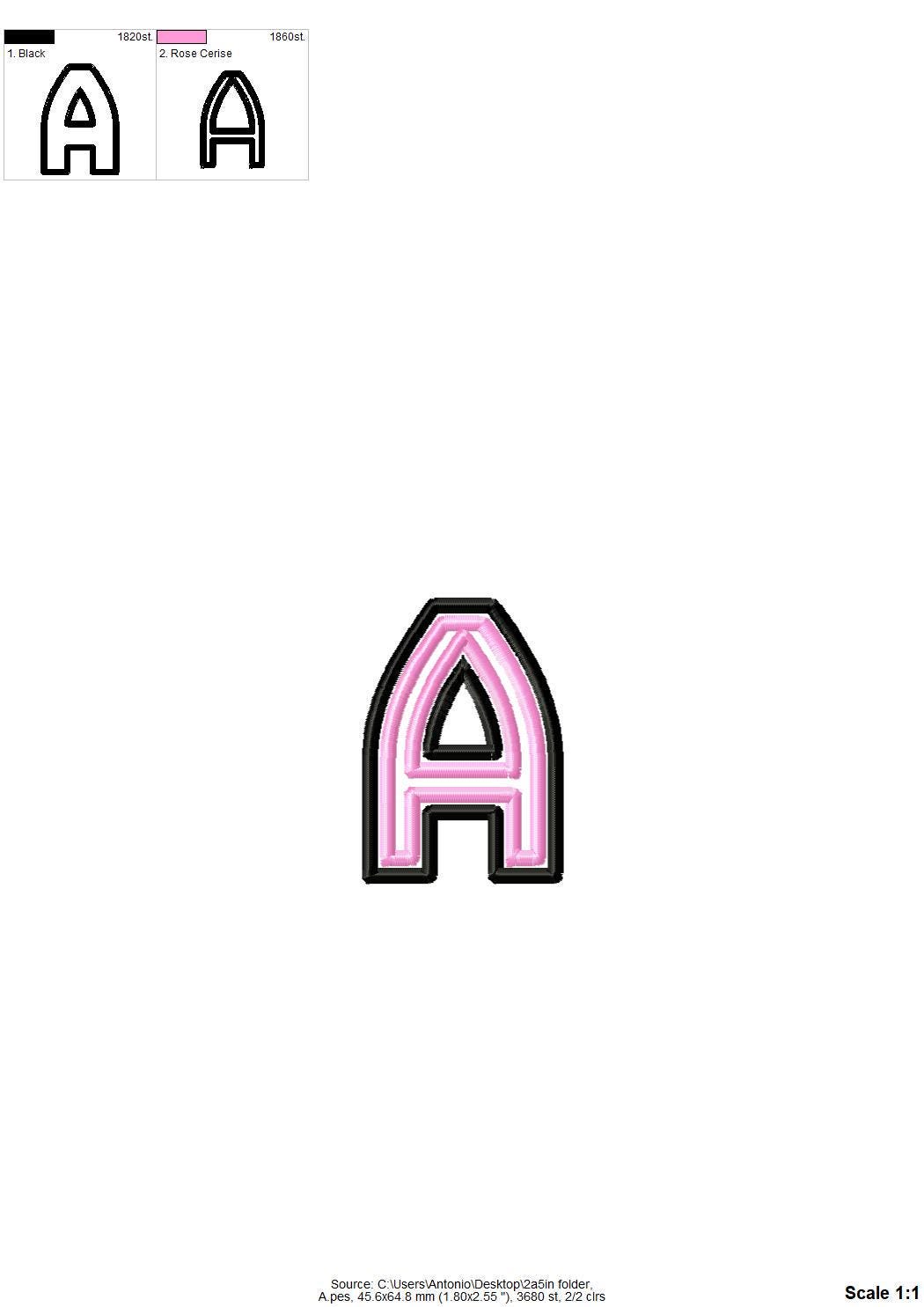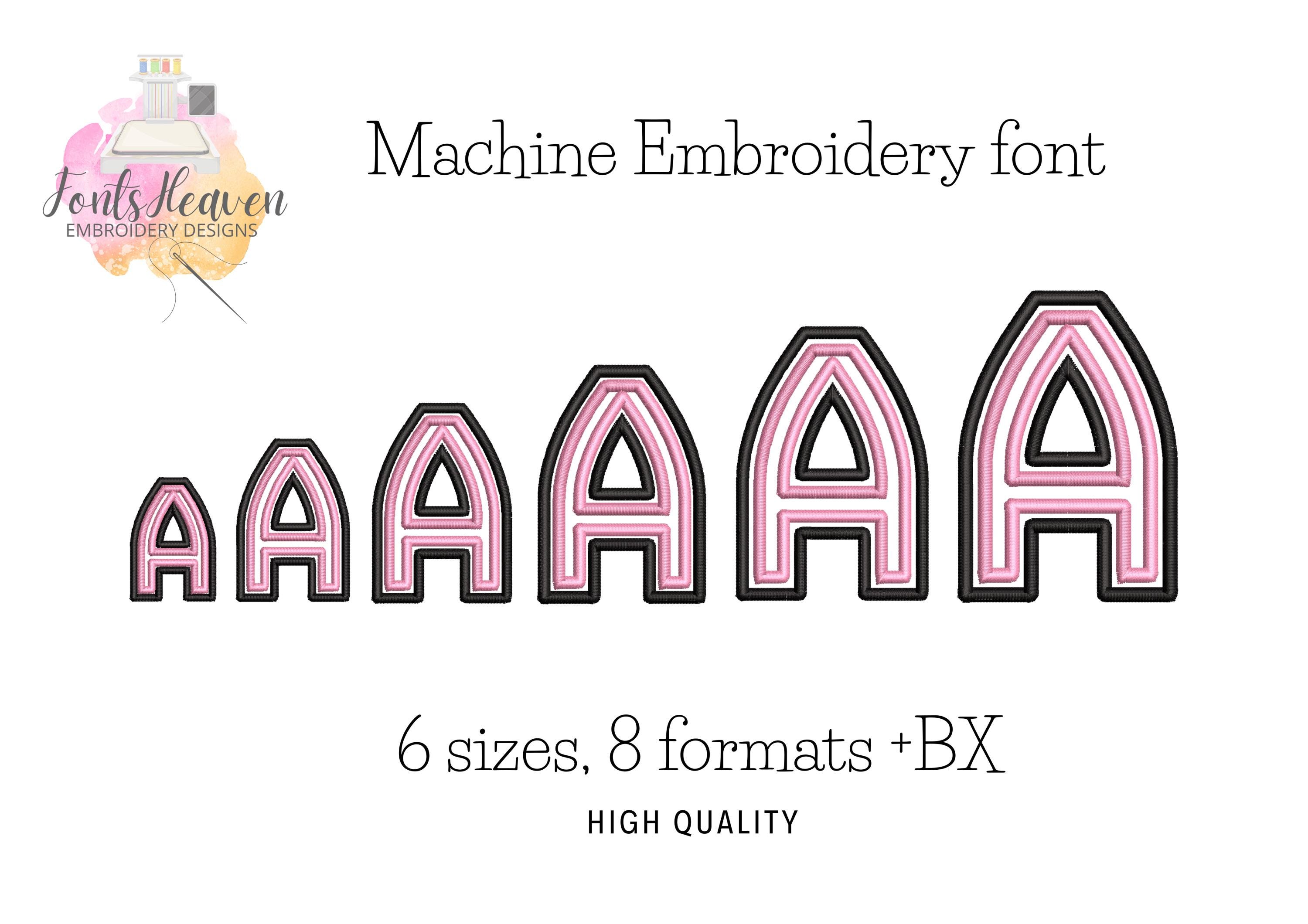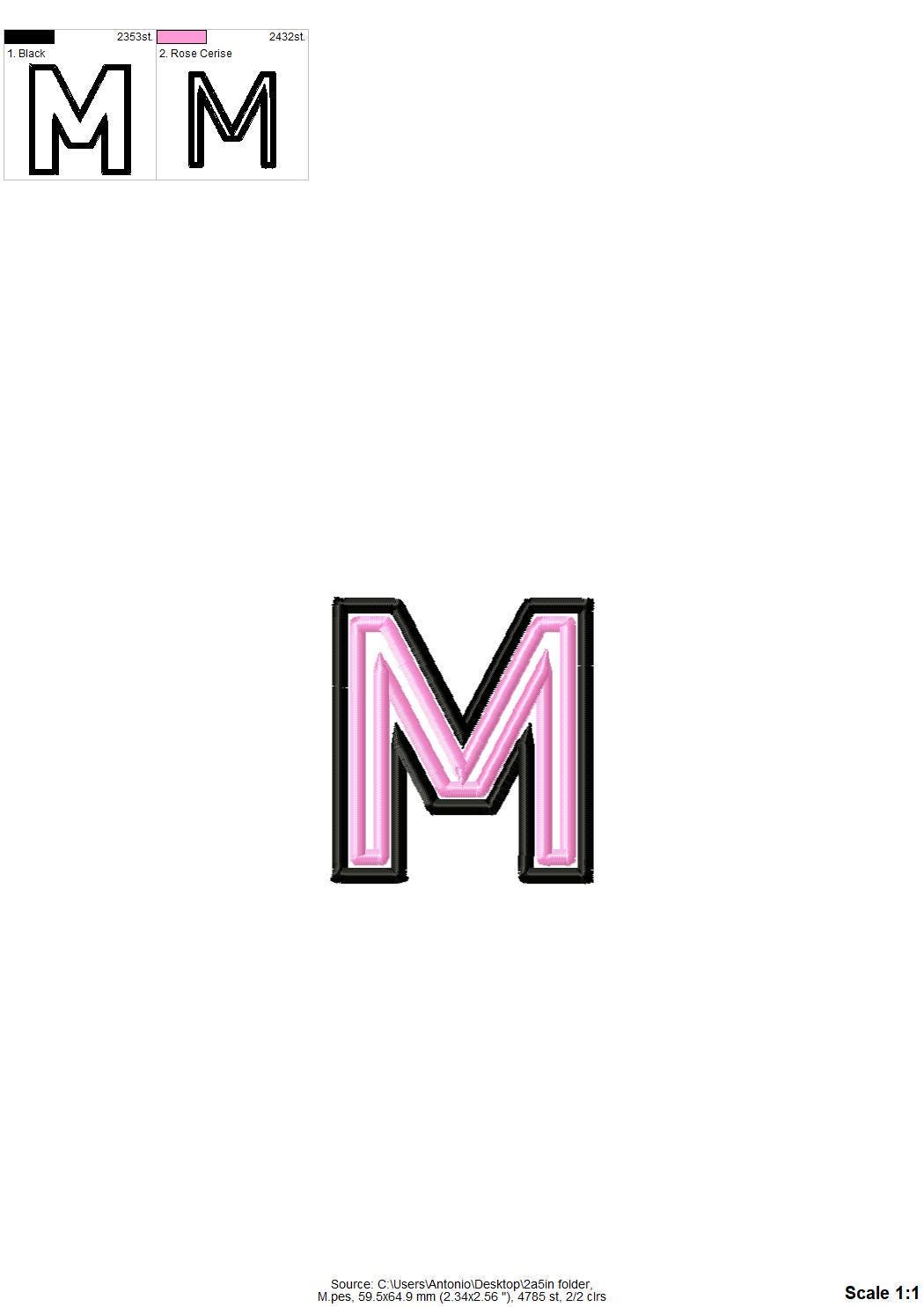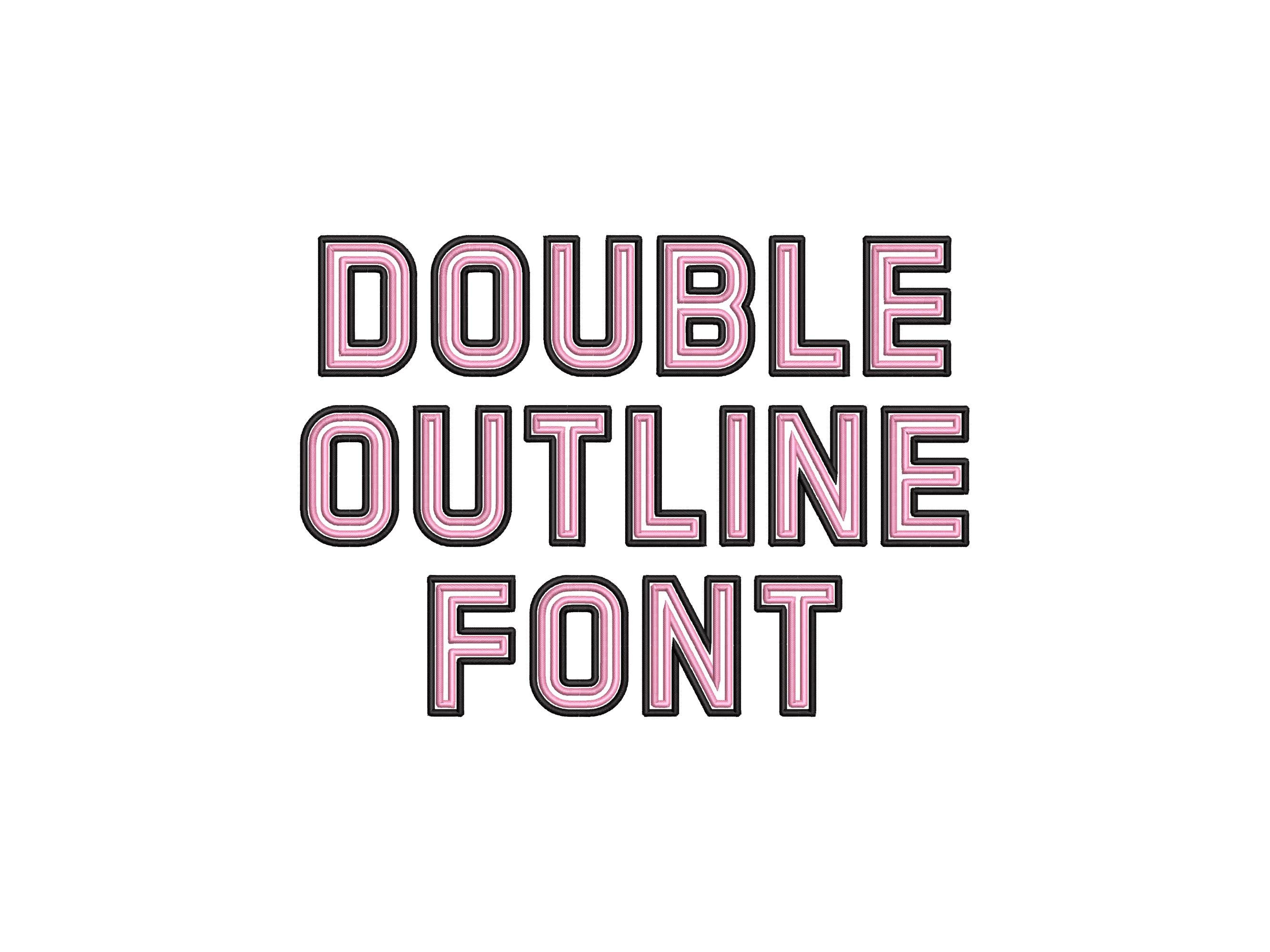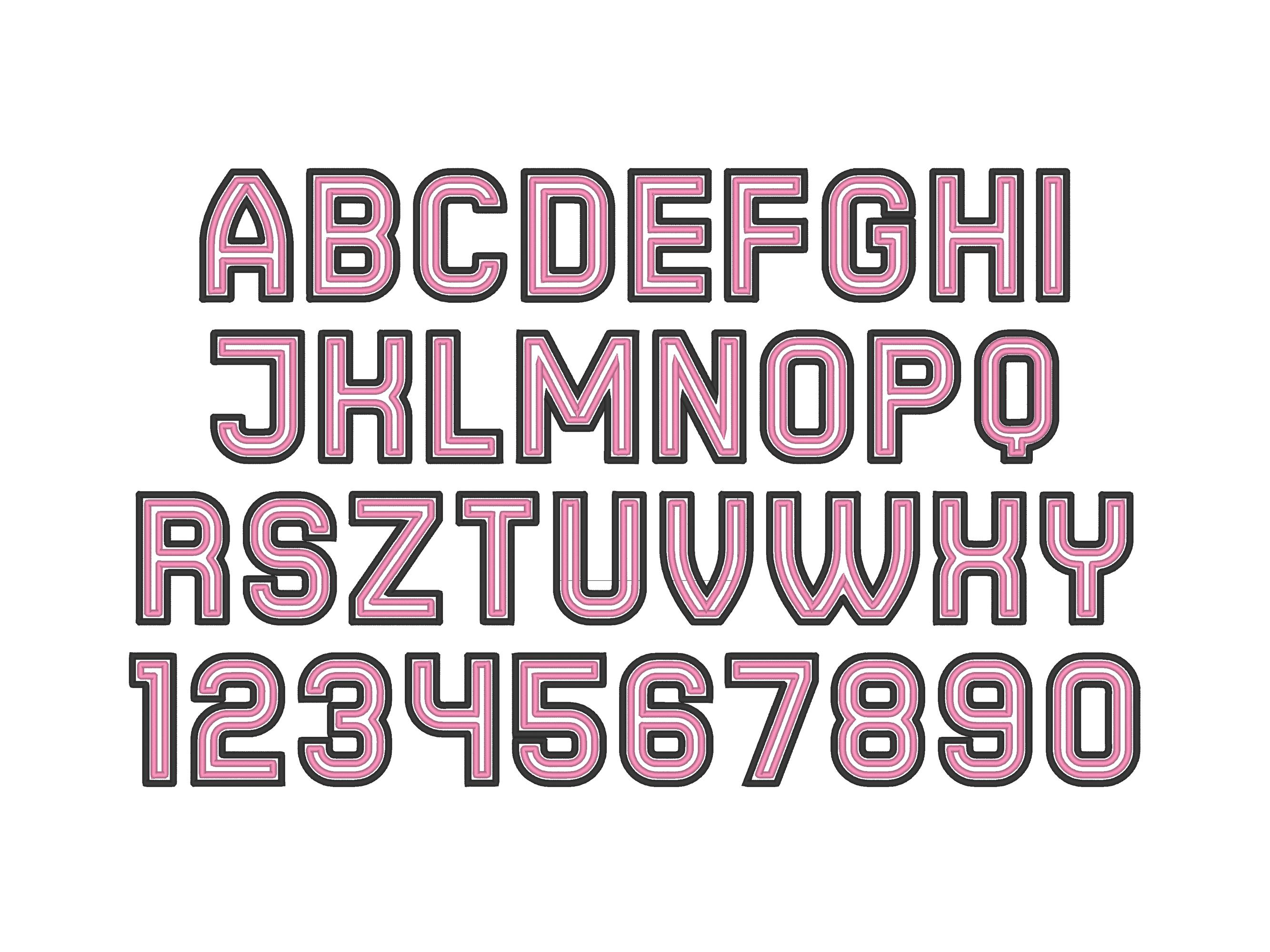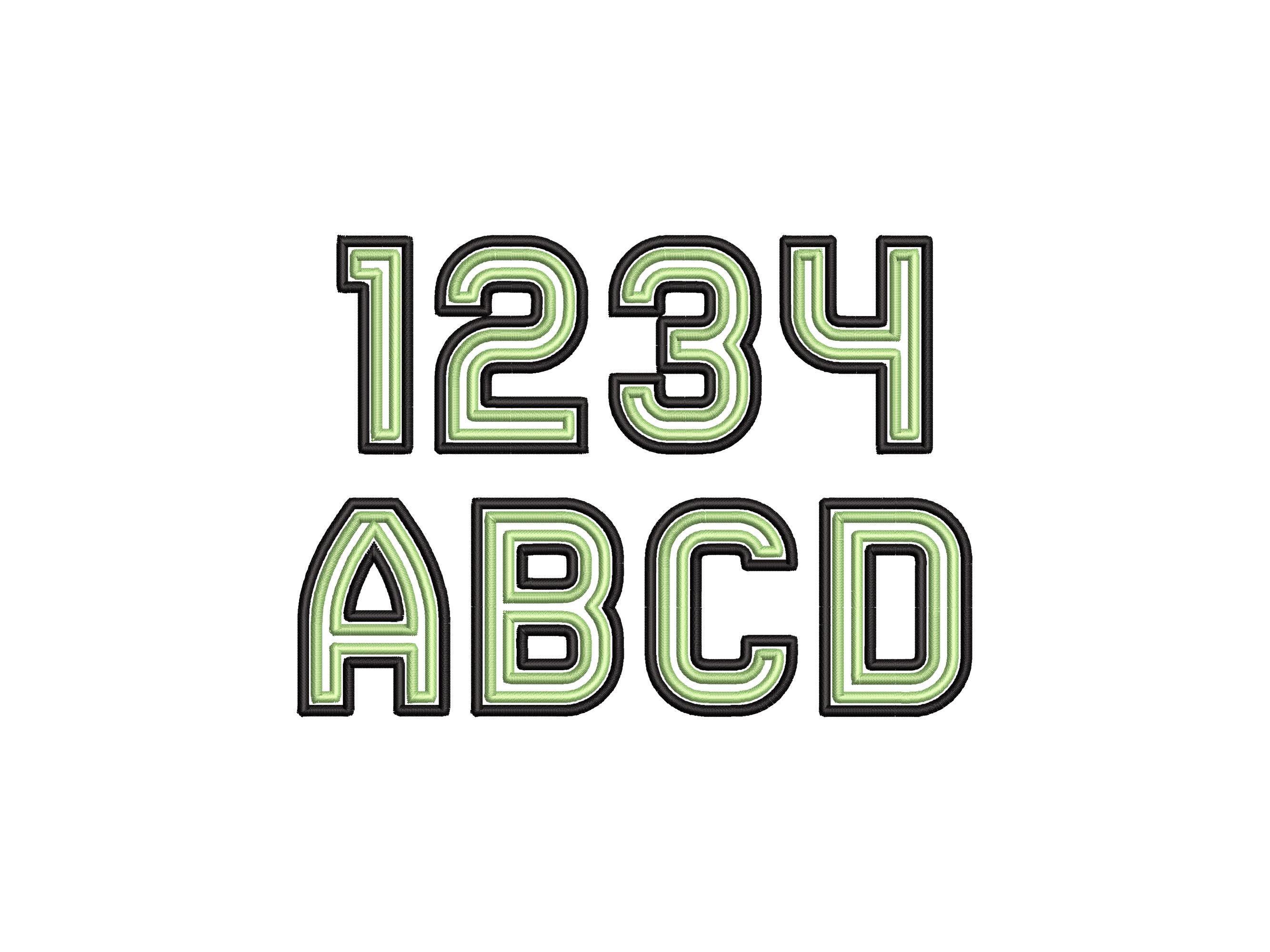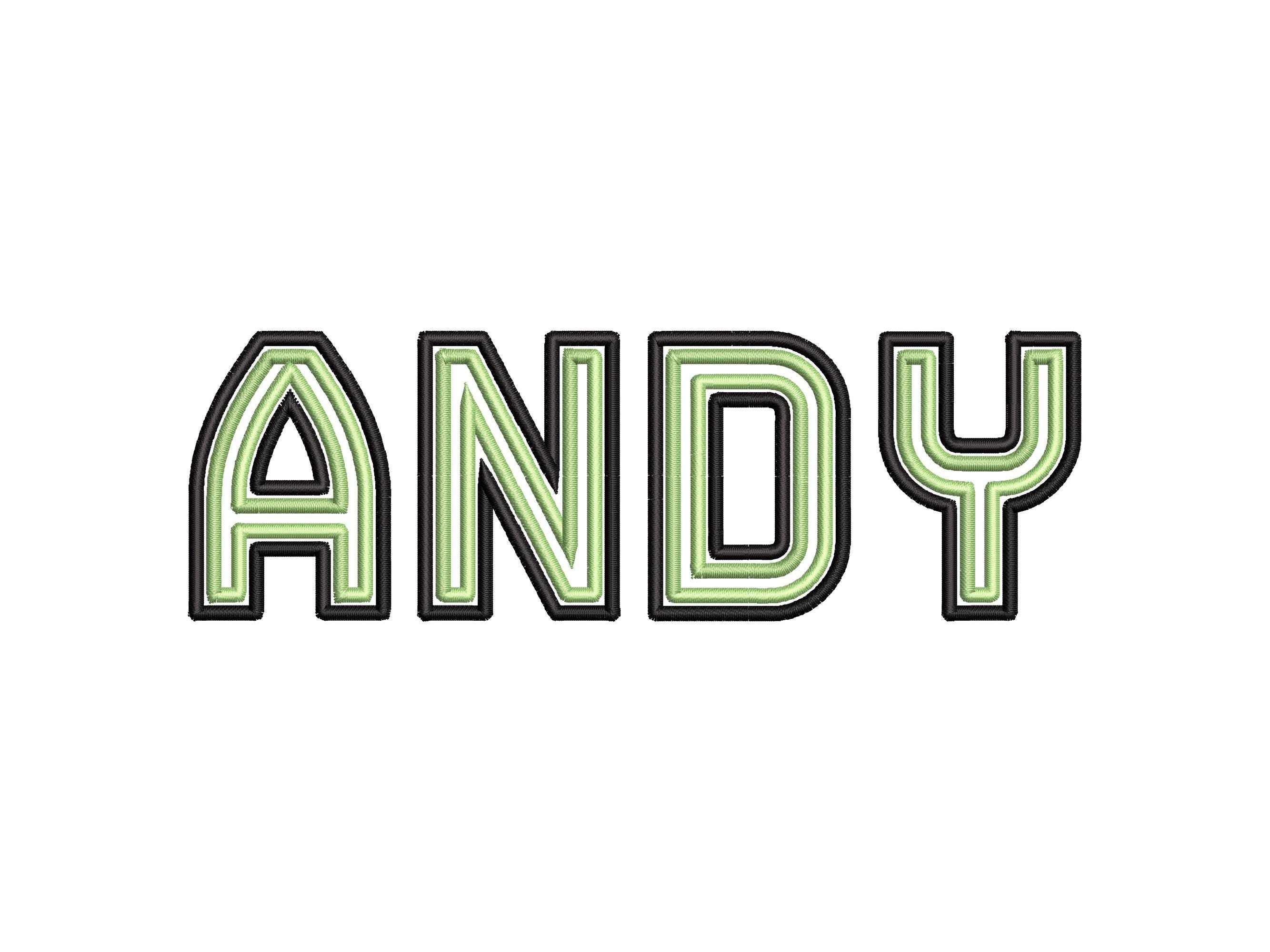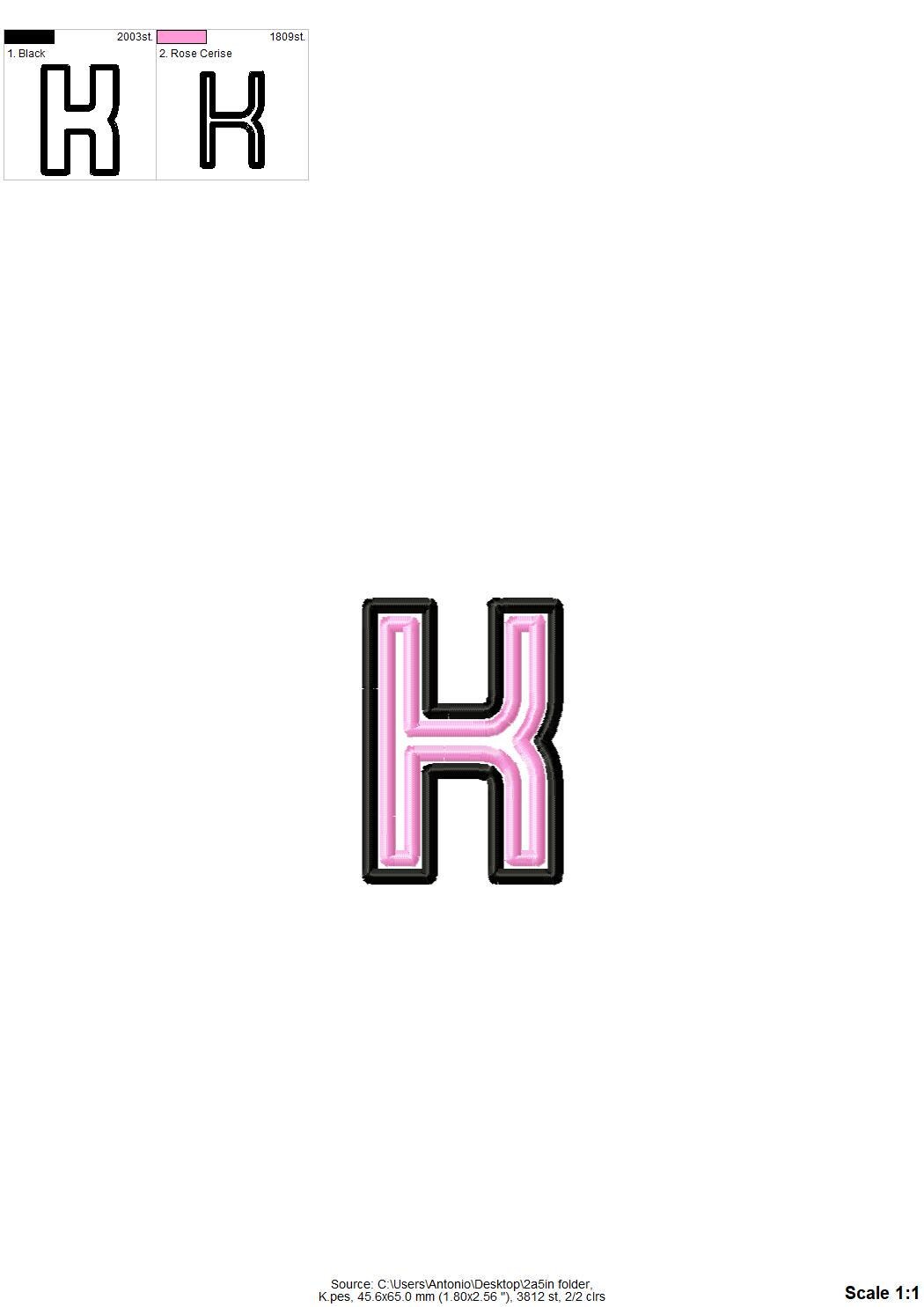
Double outline Block Font 2 outlines satin stitch machine embroidery designs monogram alphabet letters numbers sizes 1.3 through 3.3in, BX
Entire alphabet uppercase letters A-Z, and numbers 0-9.
The font has two satin stitch outlines.